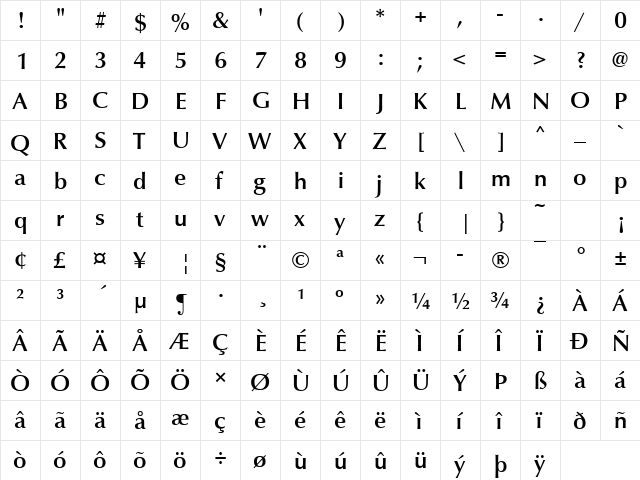
Classico Becker Med Regular
Design Context for Classico Becker Med Typeface
Classico Becker Med has the warm character of retro typography — evoking diners, record sleeves, and the golden age of print advertising.
Font Pairing: Combine Classico Becker Med with a simple slab or neutral sans — period-accurate companions reinforce the vintage feel without competing for attention.
Pro Tip: Lean into Classico Becker Med's period character by pairing it with aged paper textures, muted colour palettes, and vintage illustration styles.